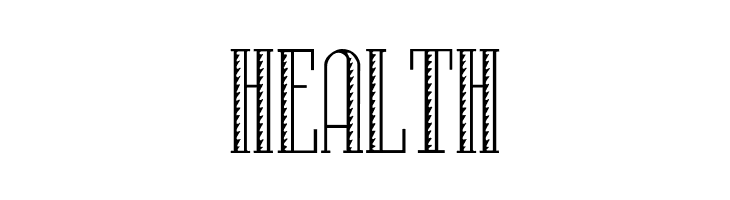
IranianHand-Lettered Font
A decorative, hand-lettered font with a striped pattern and tall, narrow characters.
IranianHandLettered Font
A decorative, hand-lettered font with tall, narrow characters and a striped pattern.